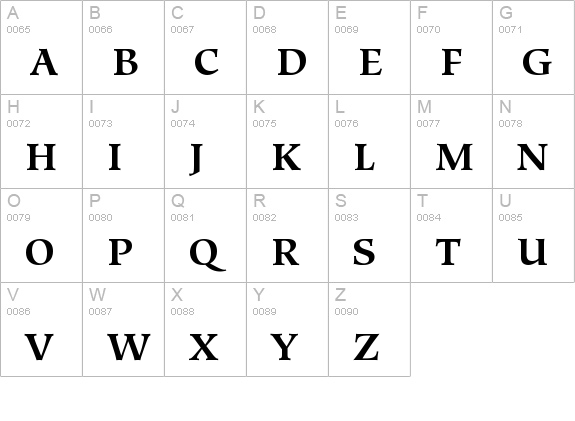
Hiroshige ATT Bold is a strong, high-contrast variant in the Hiroshige typeface family \xE2\x80\x94 well suited to headlines, attention-grabbing titles, and strong calls-to-action.
Hiroshige ATT Bold font is a stunning display typeface that exudes elegance and sophistication. With its clean lines and bold strokes, this font is perfect for making a statement in any design project. The sleek and modern aesthetic of Hiroshige ATT Bold font makes it versatile for a wide range of applications, from branding to editorial design. What sets Hiroshige ATT Bold font apart is not only its striking appearance but also the fact that it is available for free download at FontsMarket.com. This means that you can add this eye-catching font to your collection without breaking the bank. Whether you're a seasoned designer looking to refresh your font library or a newcomer in need of a standout typeface, Hiroshige ATT Bold font is sure to impress. Download it today and elevate your designs with this exceptional font.